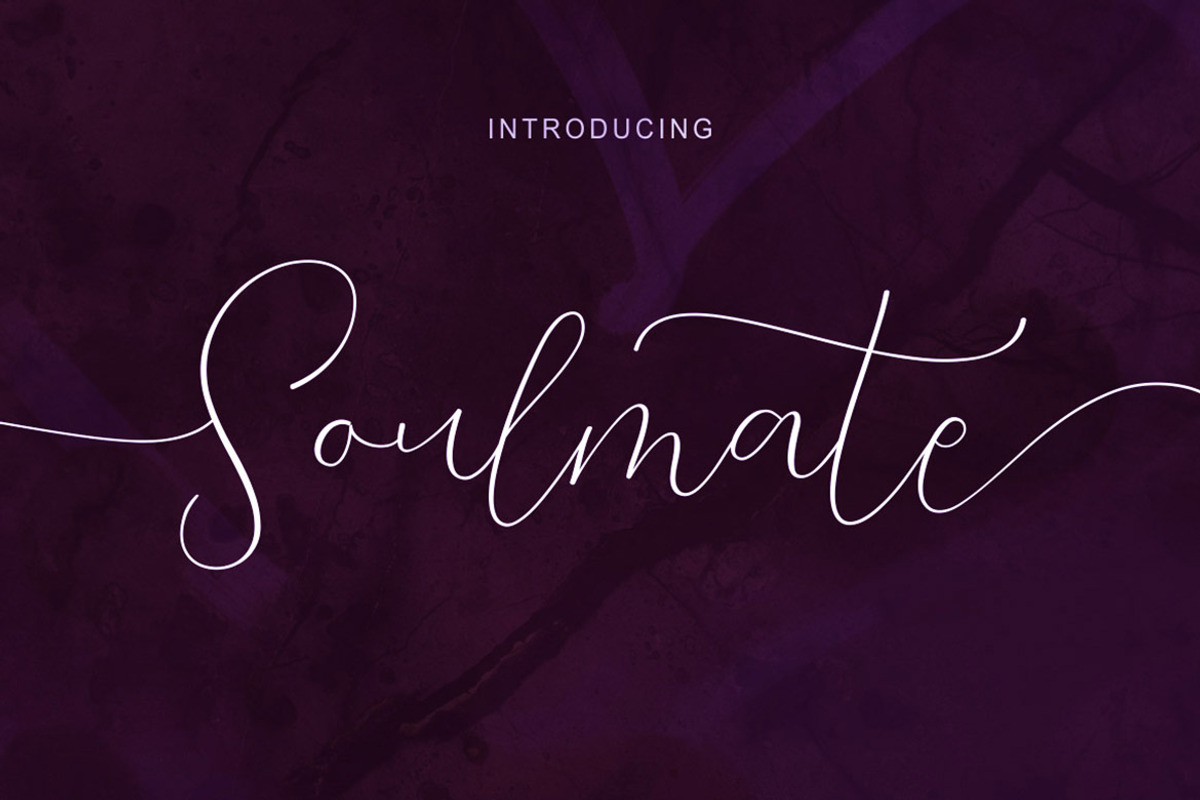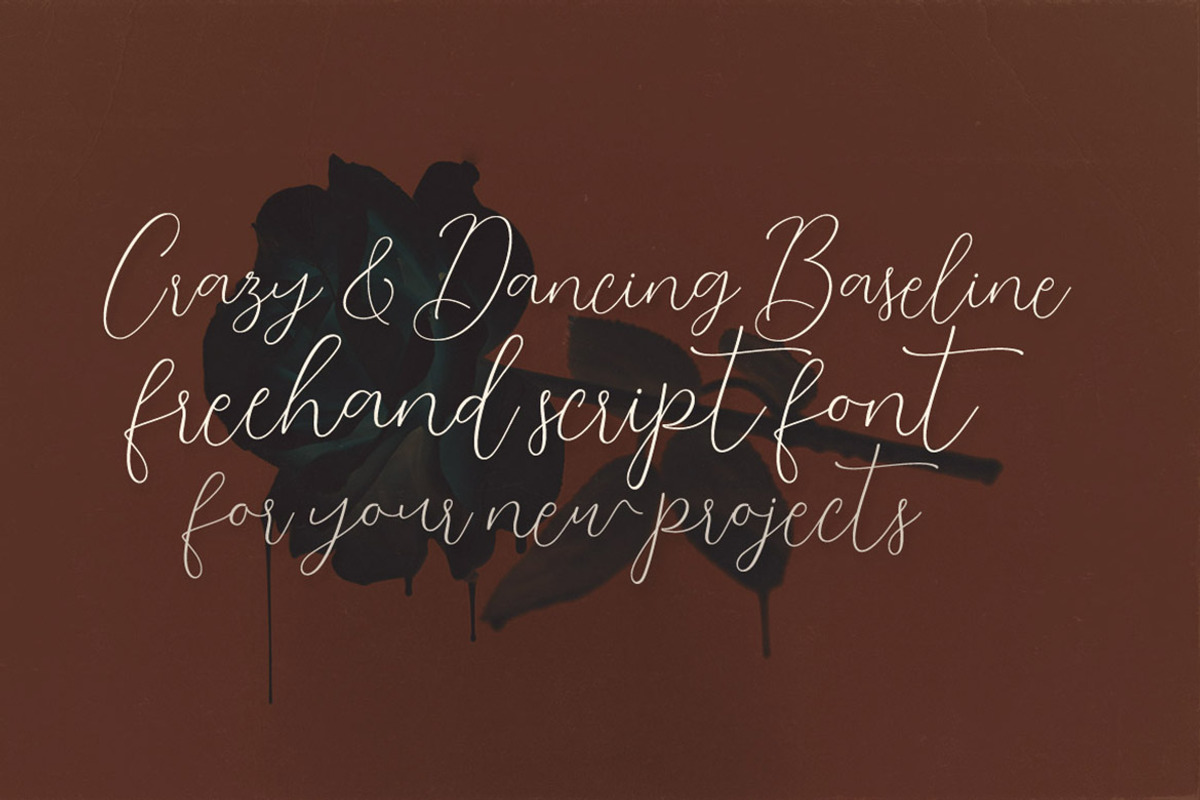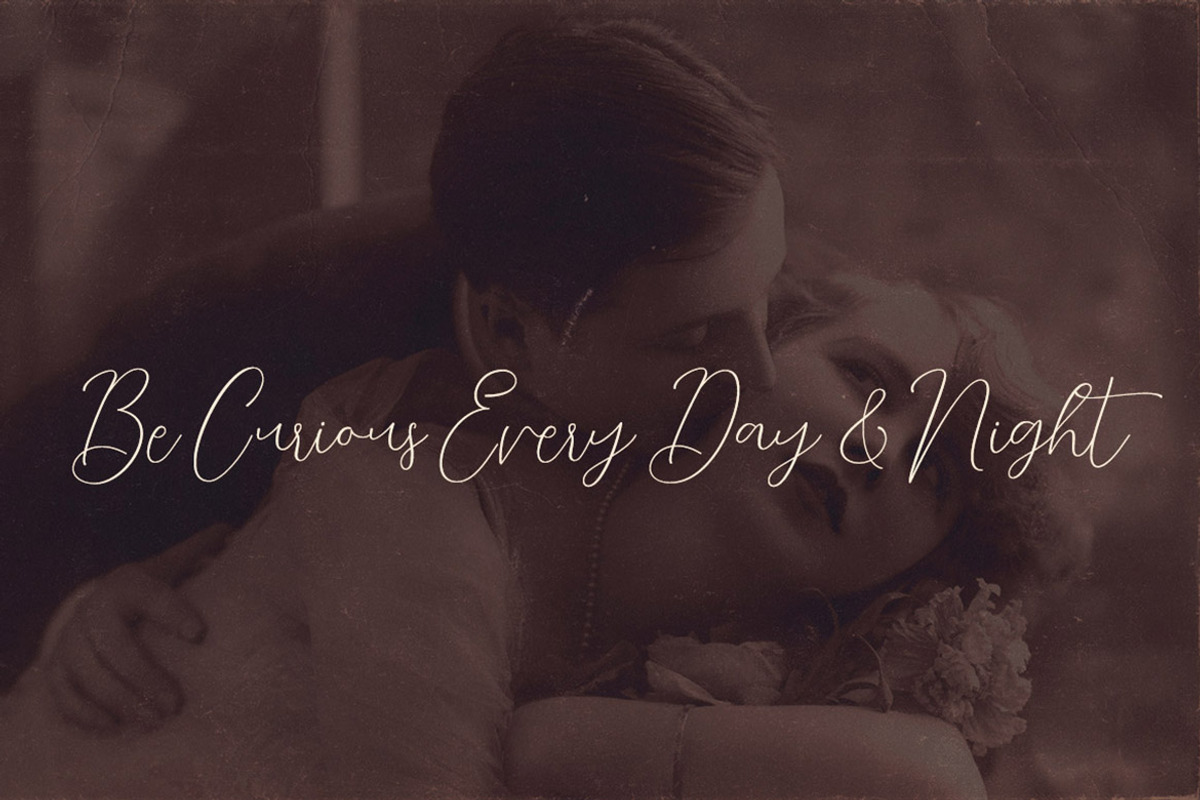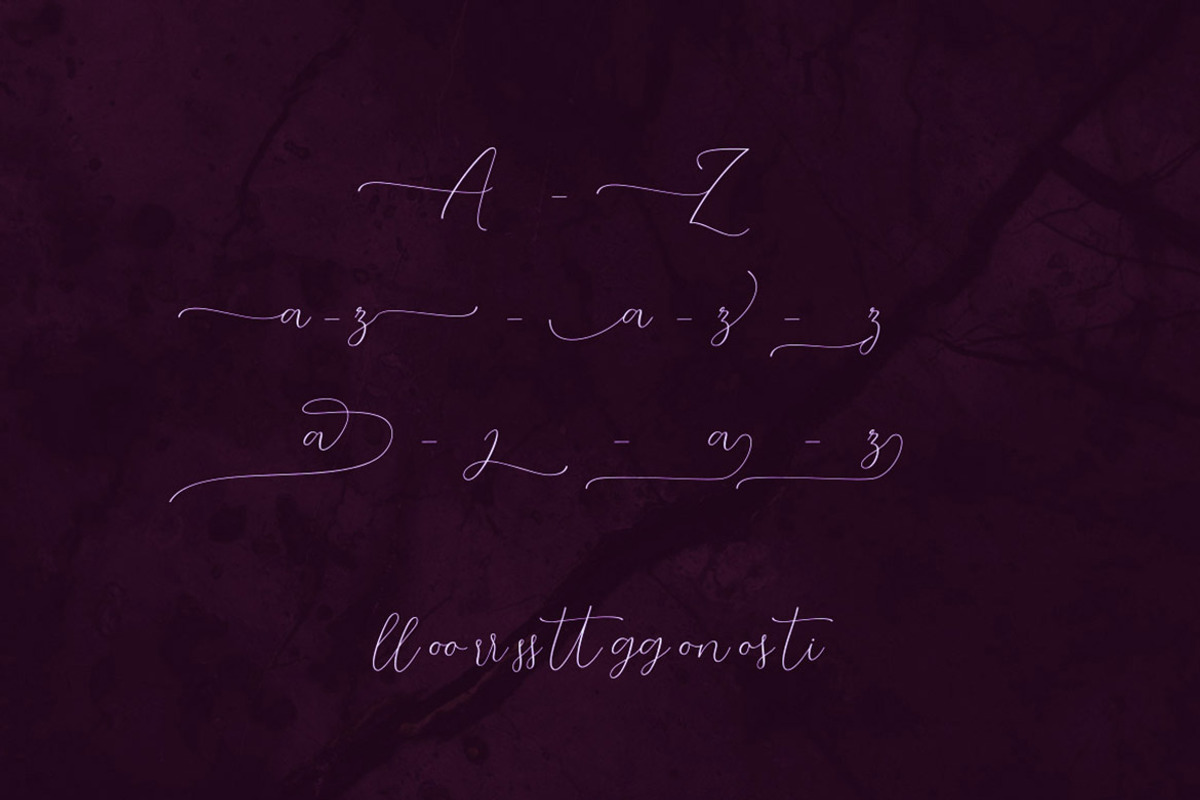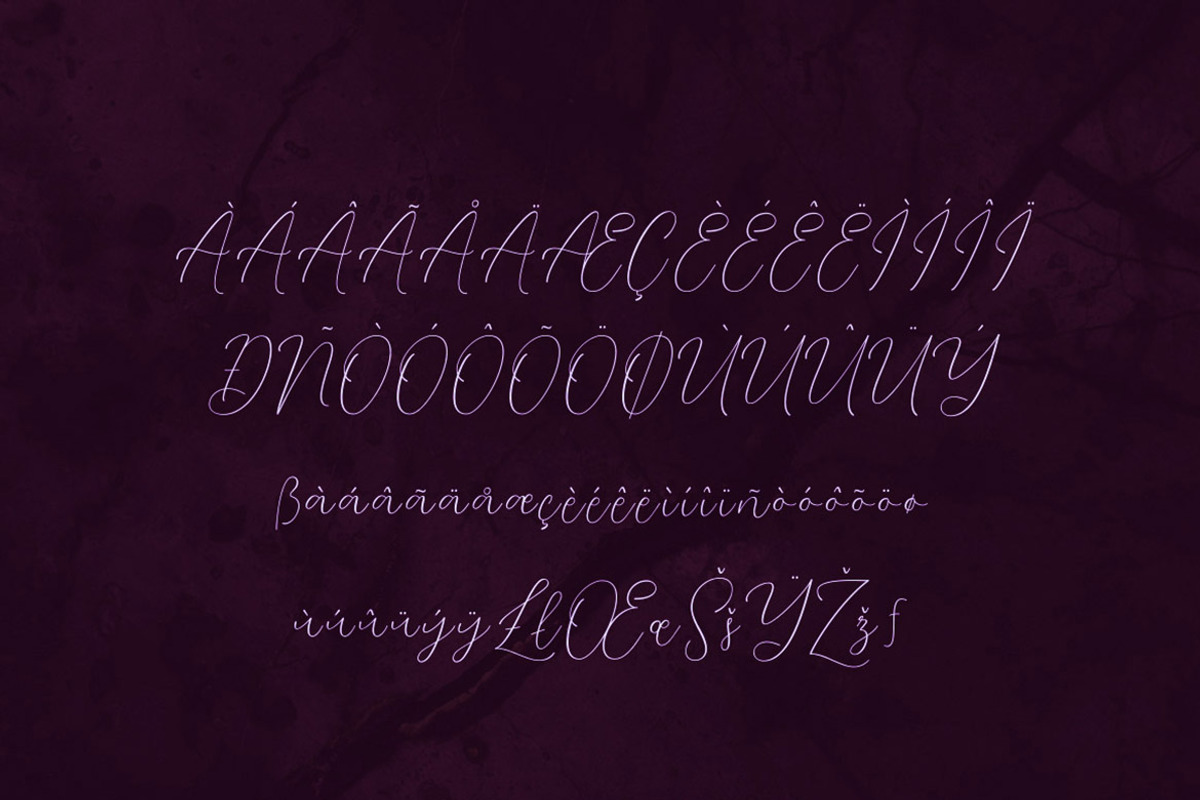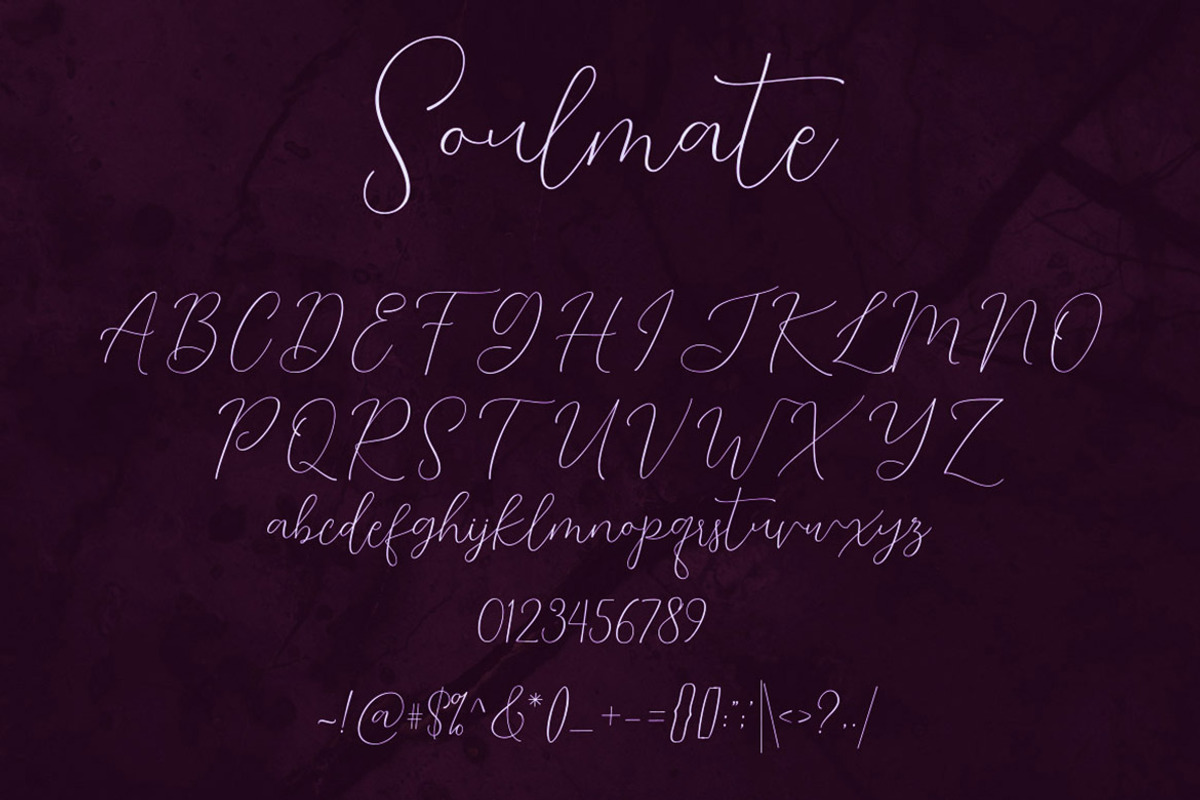
Soulmate Script Font
Thin line and handwritten or creative style script font for your new projects. With multi language support and lot of stylistic alternates. Enjoy ;)
- With multi language support and lot of stylistic alternates.
Why Soulmate Script Font is worth a look
Soulmate Script Font by Deeezy fits naturally into Branding, posters, packaging, typography.